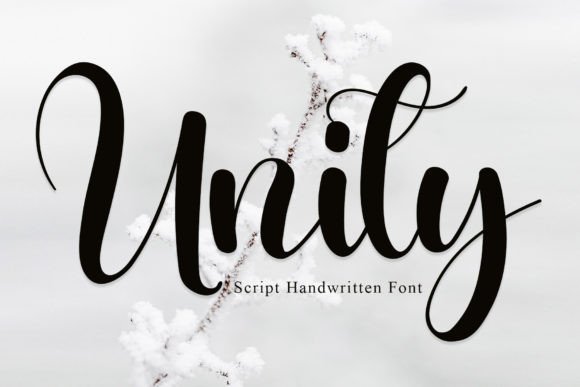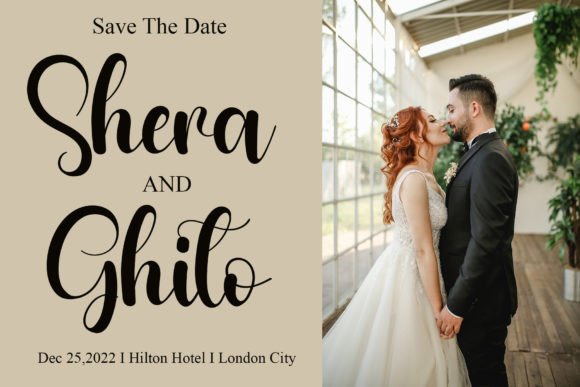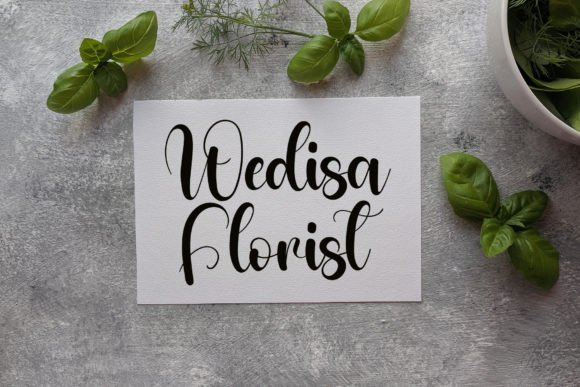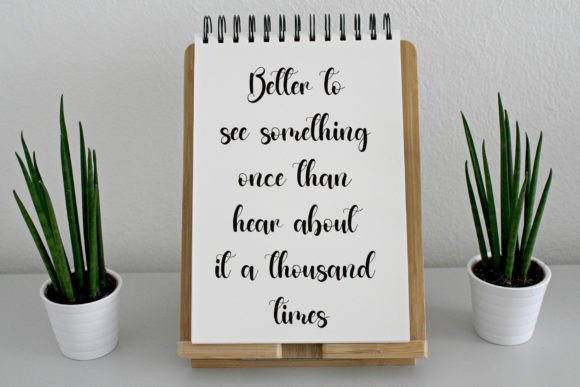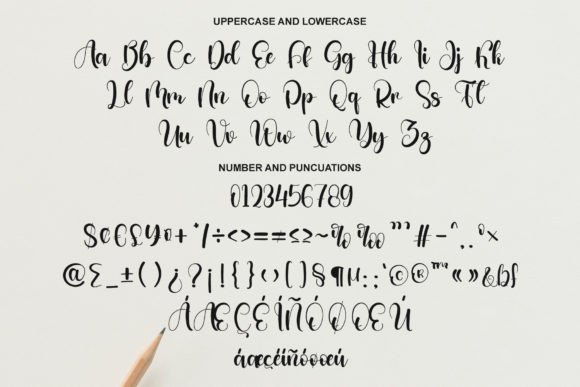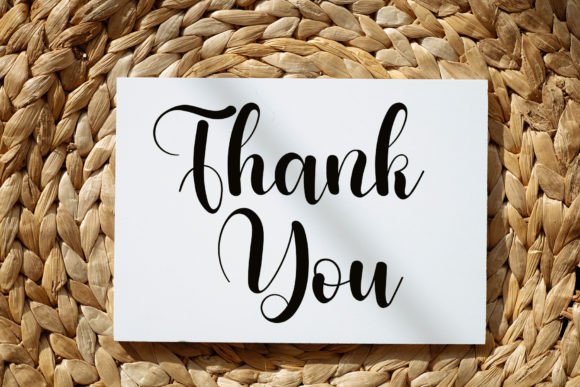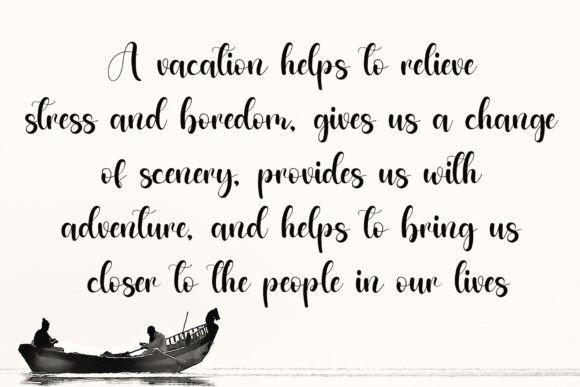
Unity Font
About Unity Font
Unity font is a lovely and sweet handwritten script designed to bring warmth and romance to your creative projects. Its gentle strokes and flowing lines make it a perfect choice for designs that need a personal and heartfelt touch. Whether you are creating wedding invitations, greeting cards, or branding materials, Unity font adds elegance and charm.
A Gentle and Romantic Style
The beauty of Unity font lies in its soft, handwritten style. It feels both inviting and delicate, creating a sense of joy and love in every letter. This font’s graceful curves ensure readability while adding a handcrafted vibe that makes each project feel special and unique.
Versatile Uses for Unity Font
This font is ideal for a wide range of applications, including:
• Wedding invitations and romantic stationery
• Greeting and thank you cards
• Brand logos and marketing materials
• Social media posts and digital graphics
• Personal letters and creative projects
Its versatility makes Unity font a favorite for anyone seeking to add a joyful and romantic atmosphere to their designs.
Adding Heartfelt Charm to Your Work
By using Unity font, you infuse your projects with warmth and emotion. The font’s handwritten nature helps create a close connection with the audience, making your designs memorable and meaningful. Its elegance and sweetness bring life to your creative ideas.
Summary
In summary, Unity font is a lovely and sweet handwritten script perfect for adding a joyful, romantic touch to weddings, branding, social media, and more. Its gentle and graceful design makes it a versatile choice for heartfelt creative projects.